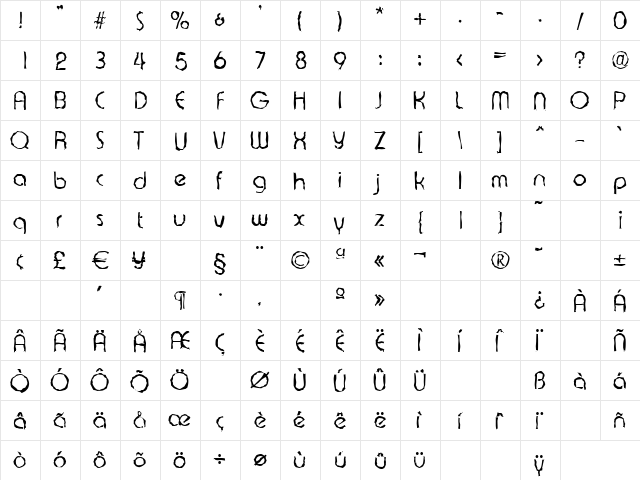
BrianBeckerRandom-Light Regular
BrianBeckerRandom-Light takes a measured approach to typography — its balanced proportions and neutral character make it a reliable workhorse for both digital and print work. Its slender proportions lend an understated elegance to any composition.